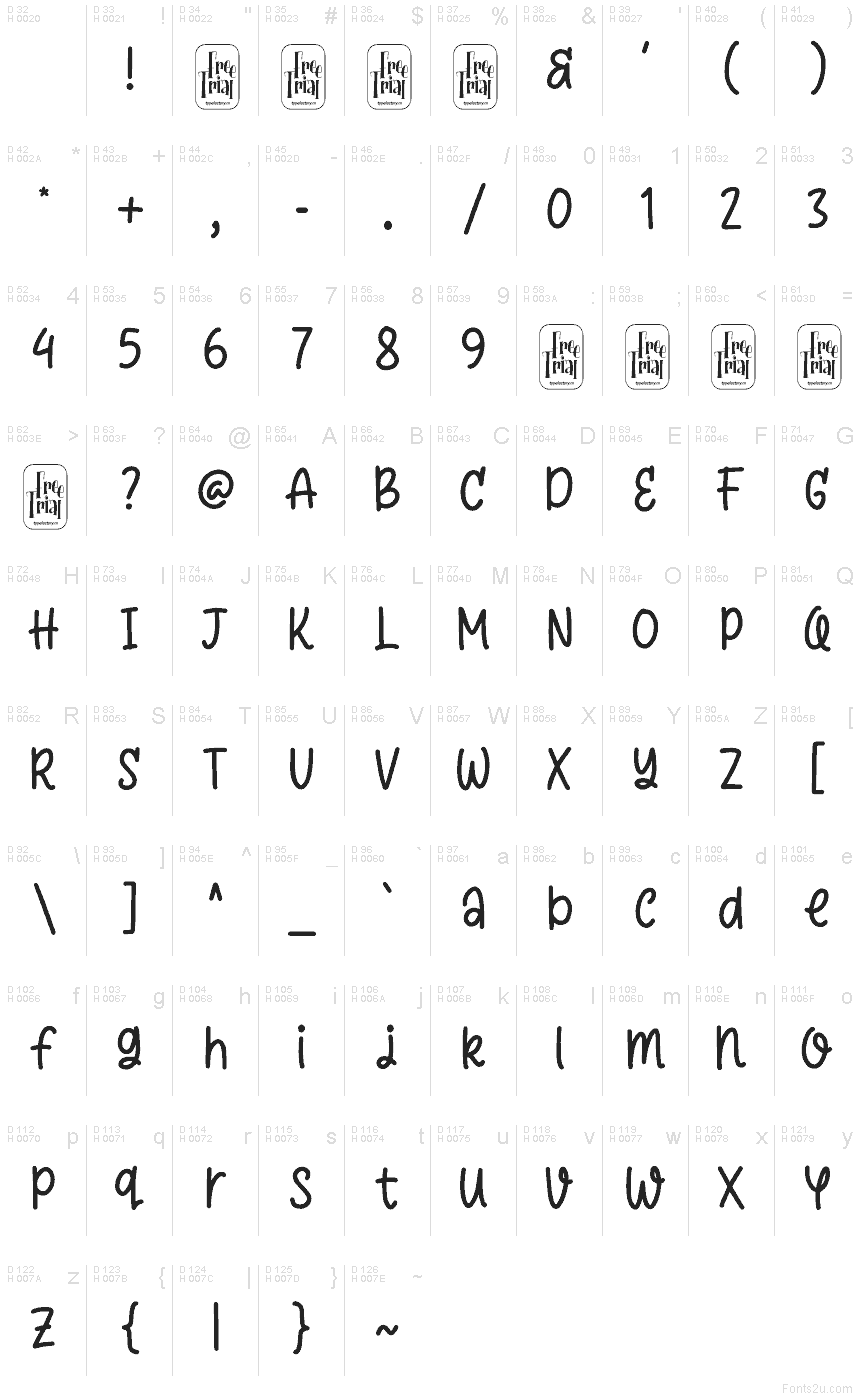
Questar Free Trial
Questar by Typefactoryco is a free handwritten font. It stands out with an easy, marker-drawn rhythm—rounded terminals, tall ascenders, and a gentle bounce that feels inky and alive. Letters hug generous counters, so words read cleanly even as the strokes stay playful, giving headlines a friendly, hand-crafted pulse without turning messy.
Using Questar, your artisan logos, sticker sheets, greeting cards, kid-friendly packaging, café boards, and social posts gain warmth and immediacy. The steady stroke contrast keeps lines legible at small sizes, while the buoyant curves sing at large scale. Pair this free font with a clean geometric sans to anchor body copy and let the hand-drawn voice shine.
Questar
Using Questar, your artisan logos, sticker sheets, greeting cards, kid-friendly packaging, café boards, and social posts gain warmth and immediacy. The steady stroke contrast keeps lines legible at small sizes, while the buoyant curves sing at large scale. Pair this free font with a clean geometric sans to anchor body copy and let the hand-drawn voice shine.
Questar